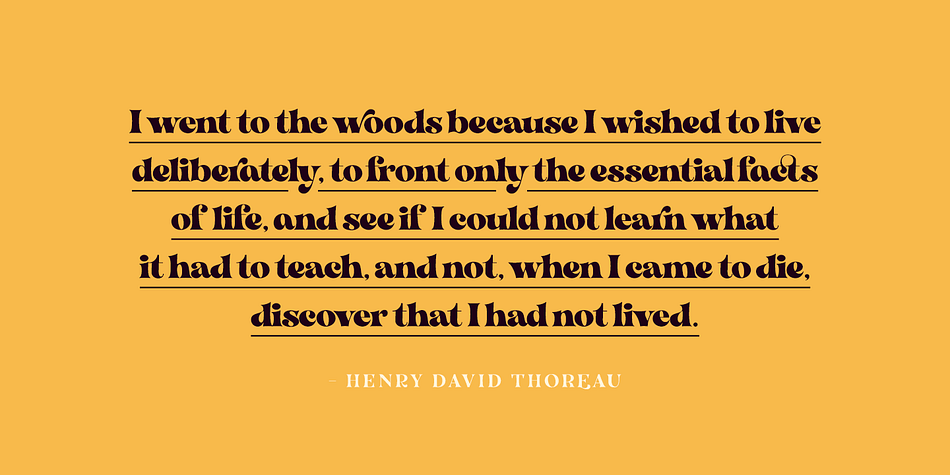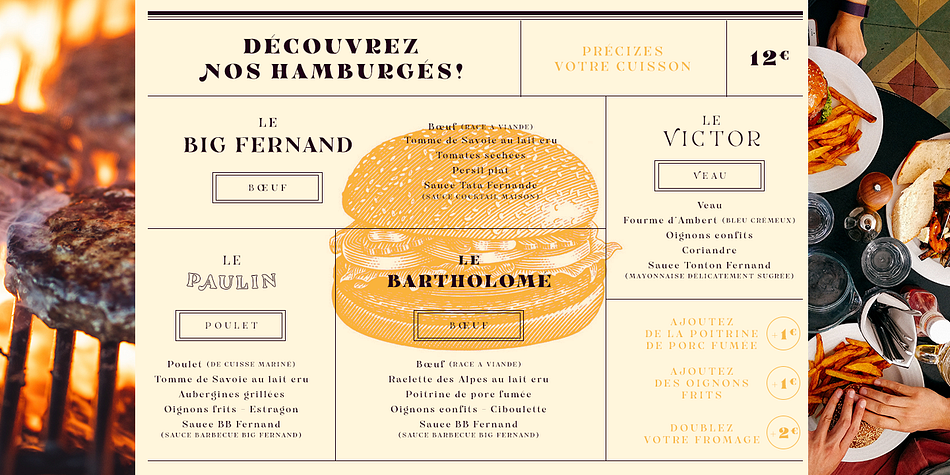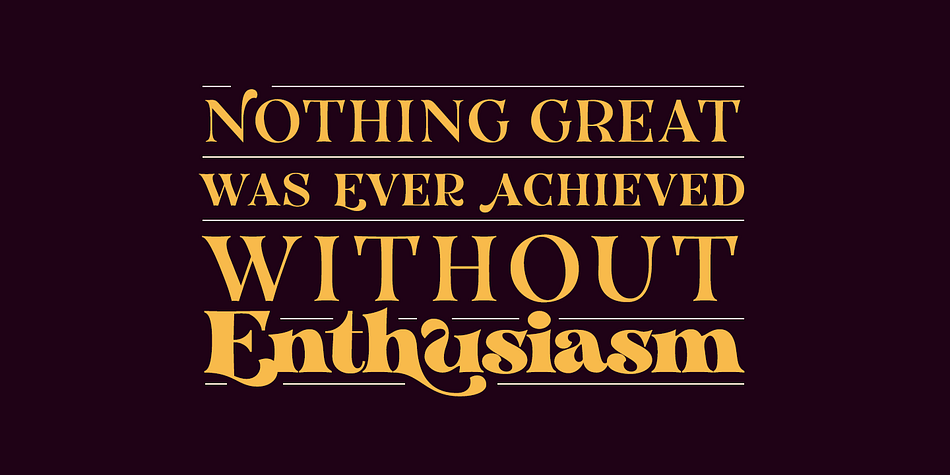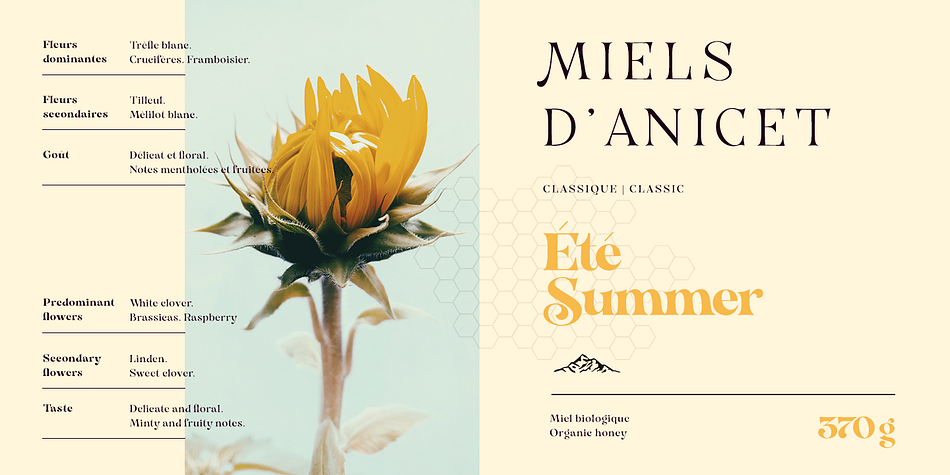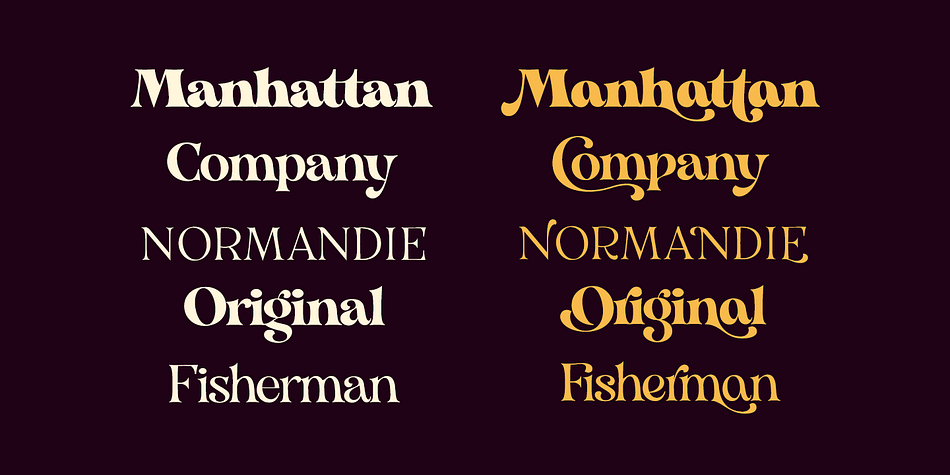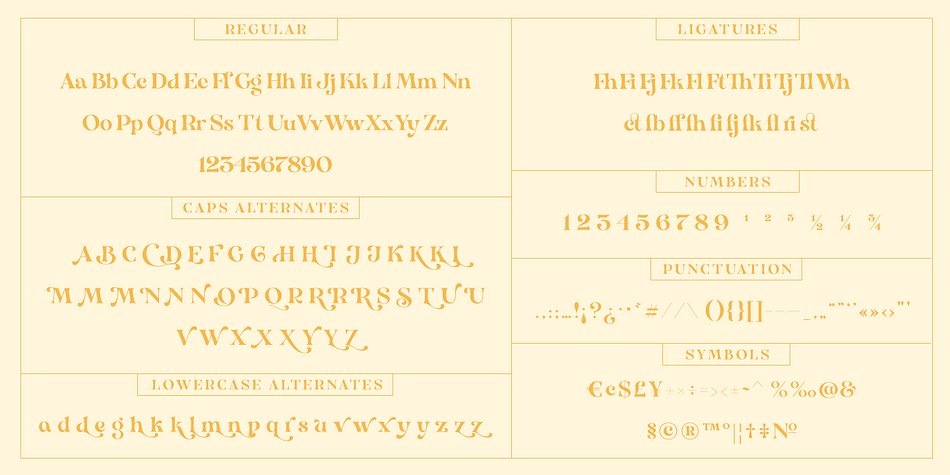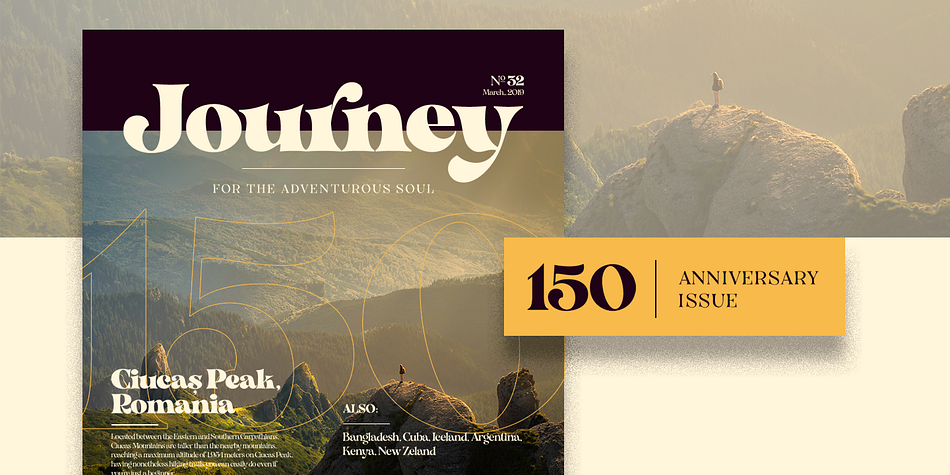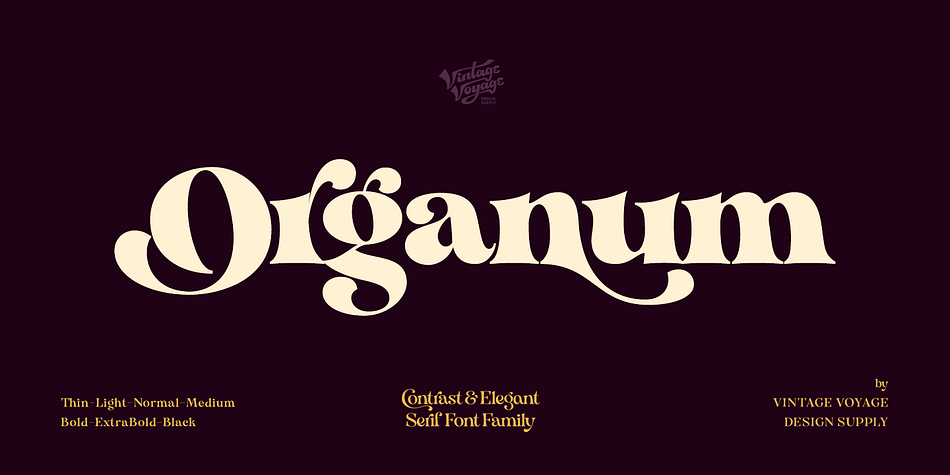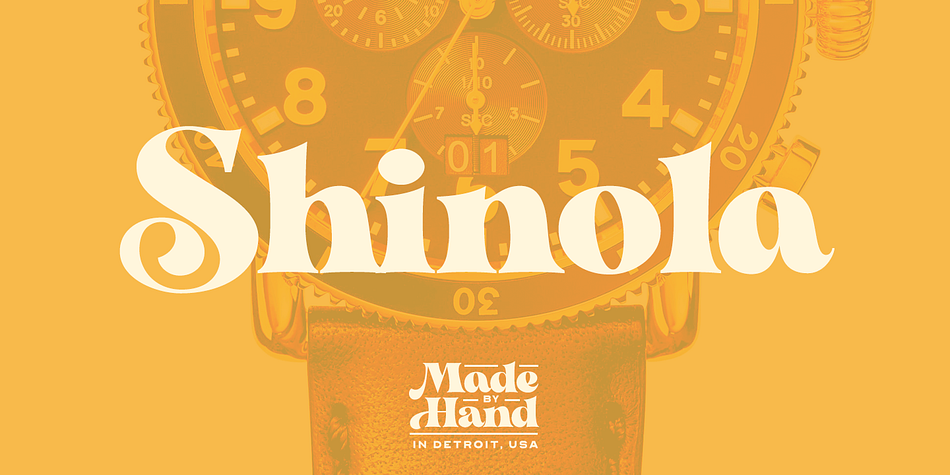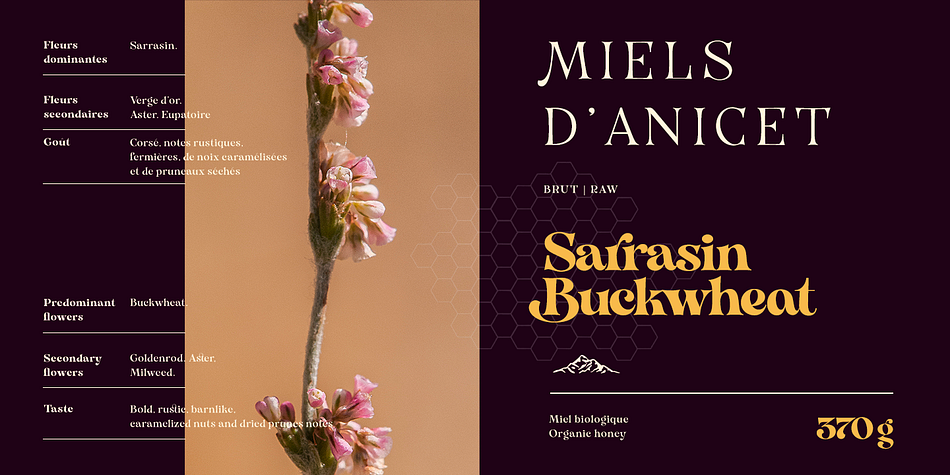
Designed by Pavel Korzhenko, Organum is a display serif and serif font family. This typeface has seven styles and was published by Vintage Voyage Design.
Elegant and easy to use serif font family with contrast vertical and horizontal strokes. Its variety of weights provide a range of choices that will help you to find the best typographic look. Use all caps to get the classic serif look, like Didones or use it normally for playful serif look. Normal and Medium widths are good for text blocks and Thin and Light, or Bold and Black are perfect for Headliners. Every letter in a word looks like as if written specially next to each other, as in hand lettering. You can use it in gentle and minimal projects, and also in projects with bold and heavy typographic base. Also, for more individuality, Organum comes with discretionary ligatures and few stylistic alternates for every caps and some lowercase letters.